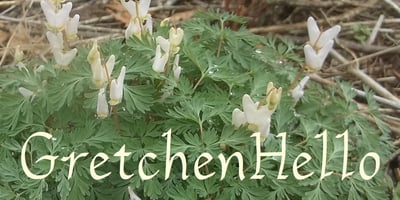
GretchenHello
GretchenHello font
GretchenHello Font Family was designed by Robert Schenk and published by Ingrimayne Type. GretchenHello contains 6 styles and family package options. GretchenHello is a typeface family of informal hand printing that looks as if it were done with a calligraphic pen. It has tall ascenders and long descenders that give it a certain elegance. The family has three weights, each with italics.